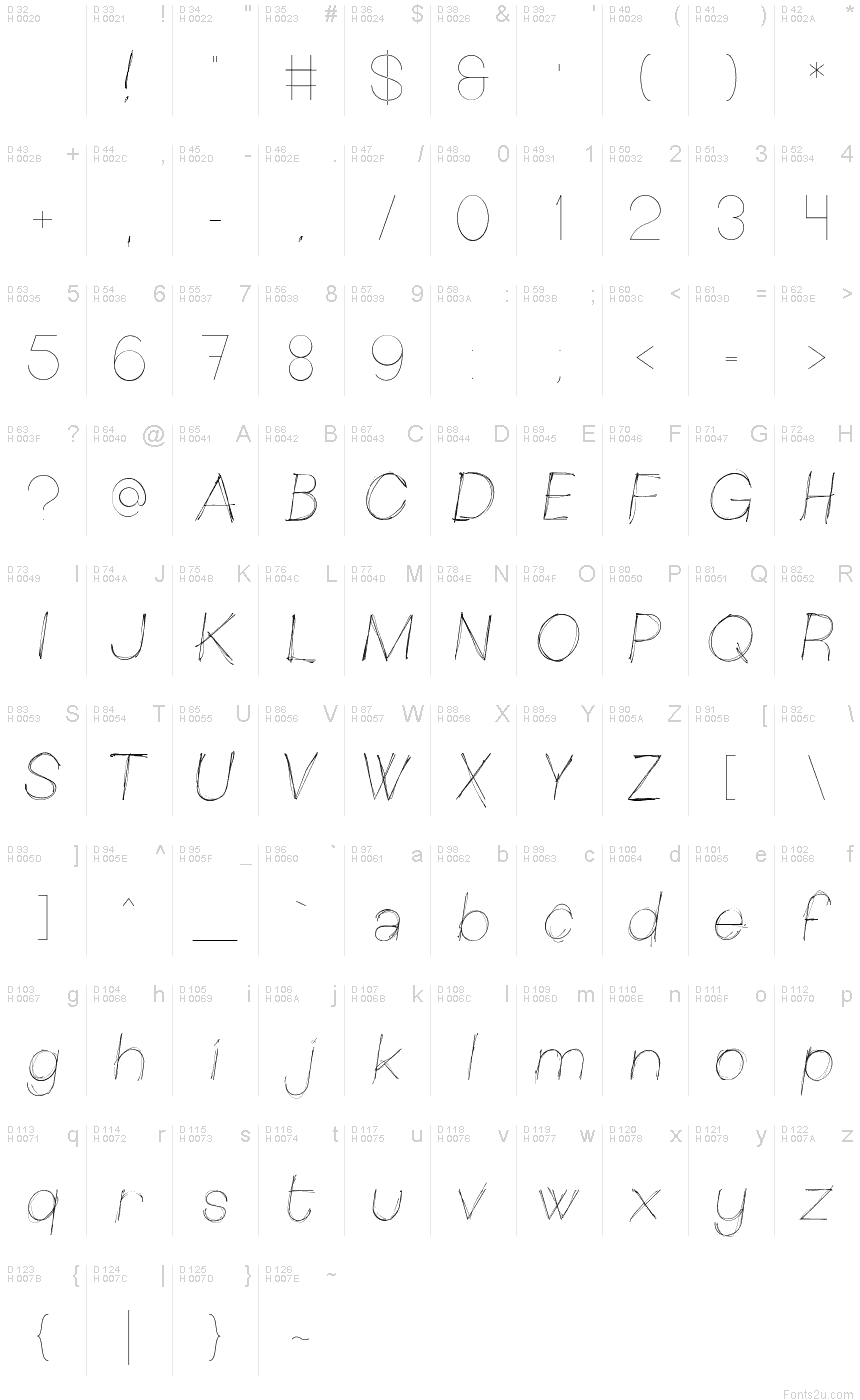
Sketchica by Måns Grebäck is a free rough script font with the nervous look of quick fashion sketches. Its tall letters use fine, wavering strokes, with doubled lines and stray overlaps left visible. The result has a deliberately unfinished look.
A fashion label could use it for campaign titles and garment tags. Its lanky proportions also suit gallery posters and music artwork, lending each a raw, provisional edge. The pencil-like marks recall sketchbooks, studio notes, and experimental illustration.